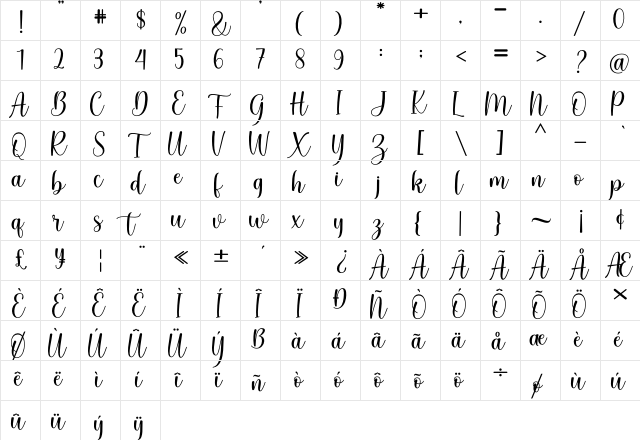
Bunny Honey Regular
| Foundry | Kong Font |
| Designer | Kong Font |
Design Context for Bunny Honey Typeface
Bunny Honey is a composed and adaptable typeface that performs quietly and consistently across a wide range of design contexts.